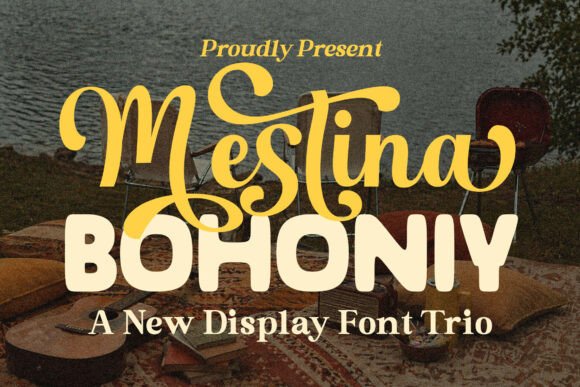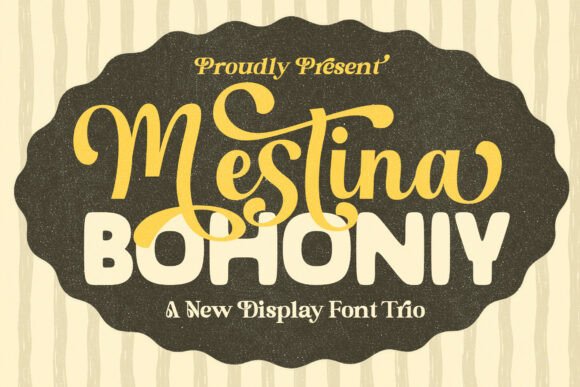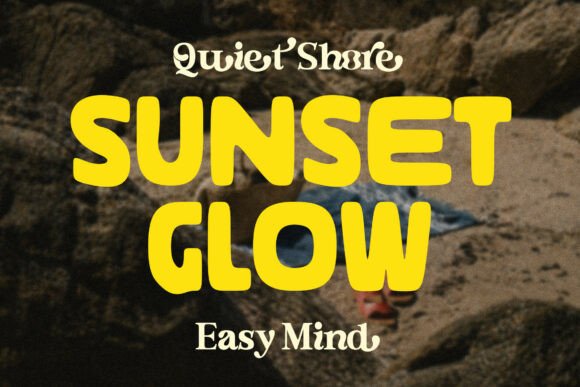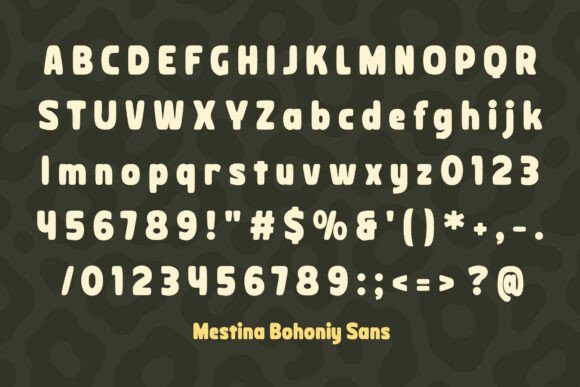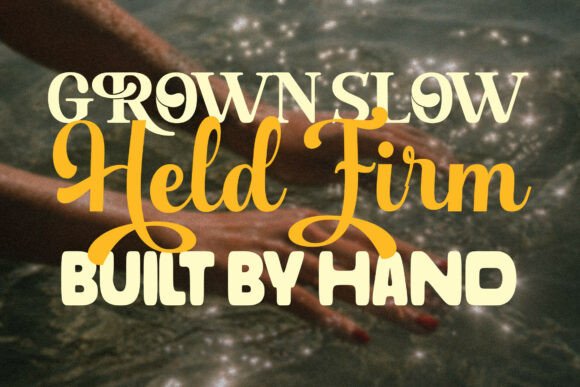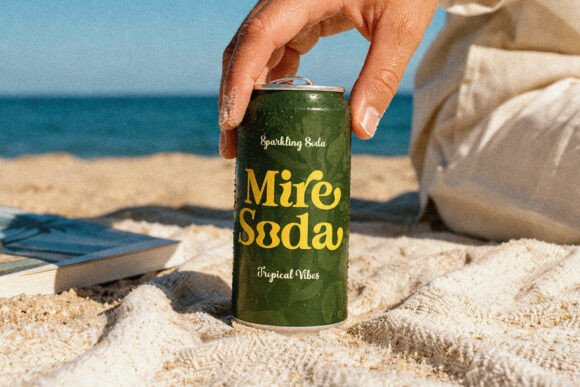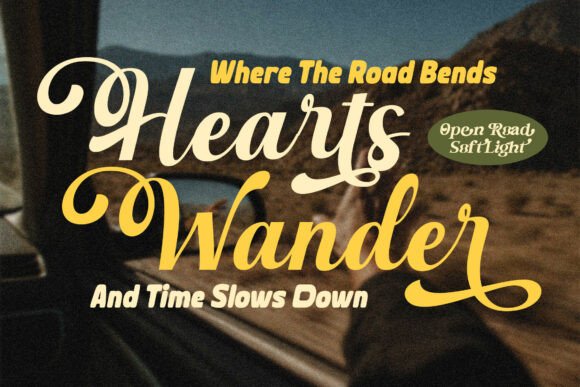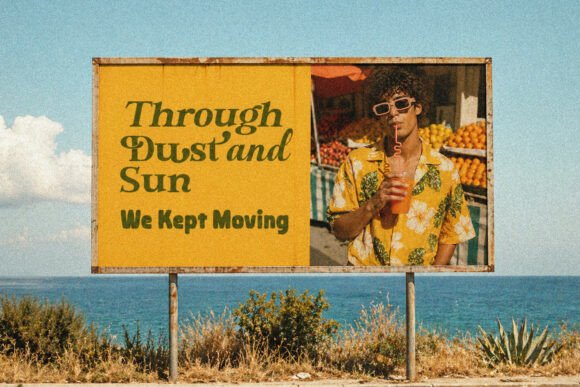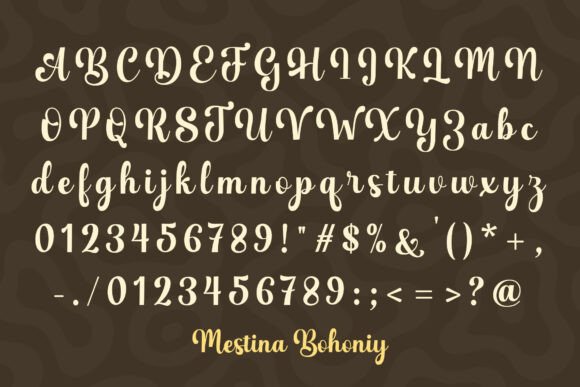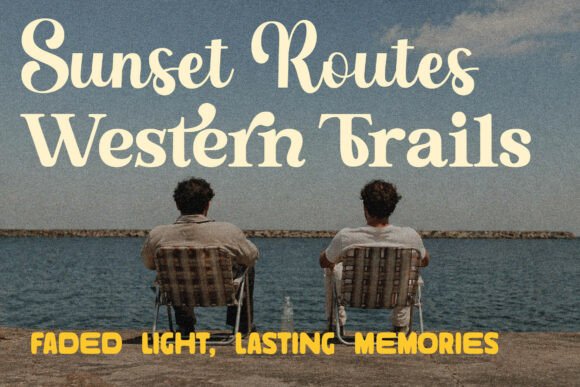
Mestina Bohoniy Script Fonts
Mestina Bohoniy – A Cinematic Typographic Journey
Infuse your designs with the soul of a thousand sunsets. Mestina Bohoniy is a sophisticated typographic pairing that bridges the gap between heritage structure and intimate, fluid expression. This collection captures the hazy romance of analog photography and the unhurried pace of the open road, offering a visual language that feels both deeply personal and timelessly iconic.
By marrying a statuesque, time-worn serif with the rhythmic grace of a handwritten script, this duo provides designers with a versatile toolkit for building narratives. It is the perfect choice for projects that require a balance of structural authority and organic warmth, turning every layout into a piece of evocative storytelling.
– Heritage-inspired branding and visual identities
– Travel narratives and wanderlust-driven social content
– Tactile label design, custom apparel, and bespoke posters
– High-concept editorial layouts and artisanal packaging with a human touch